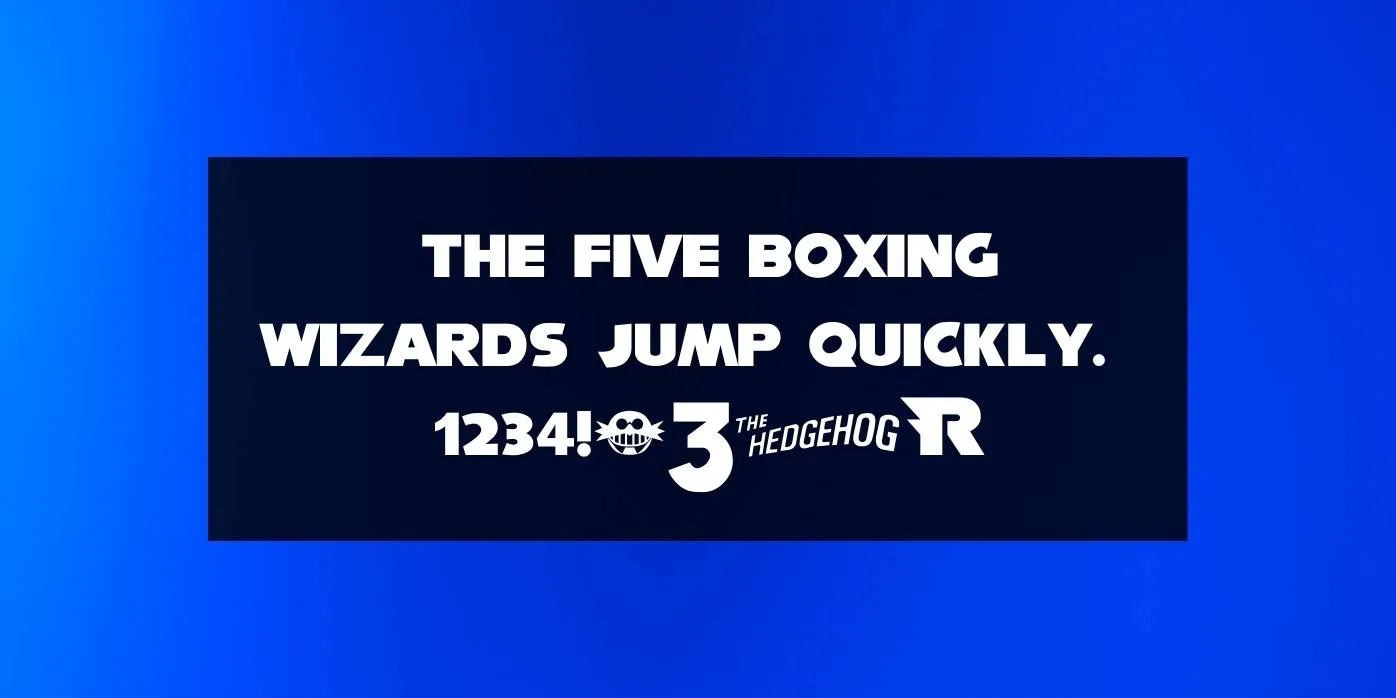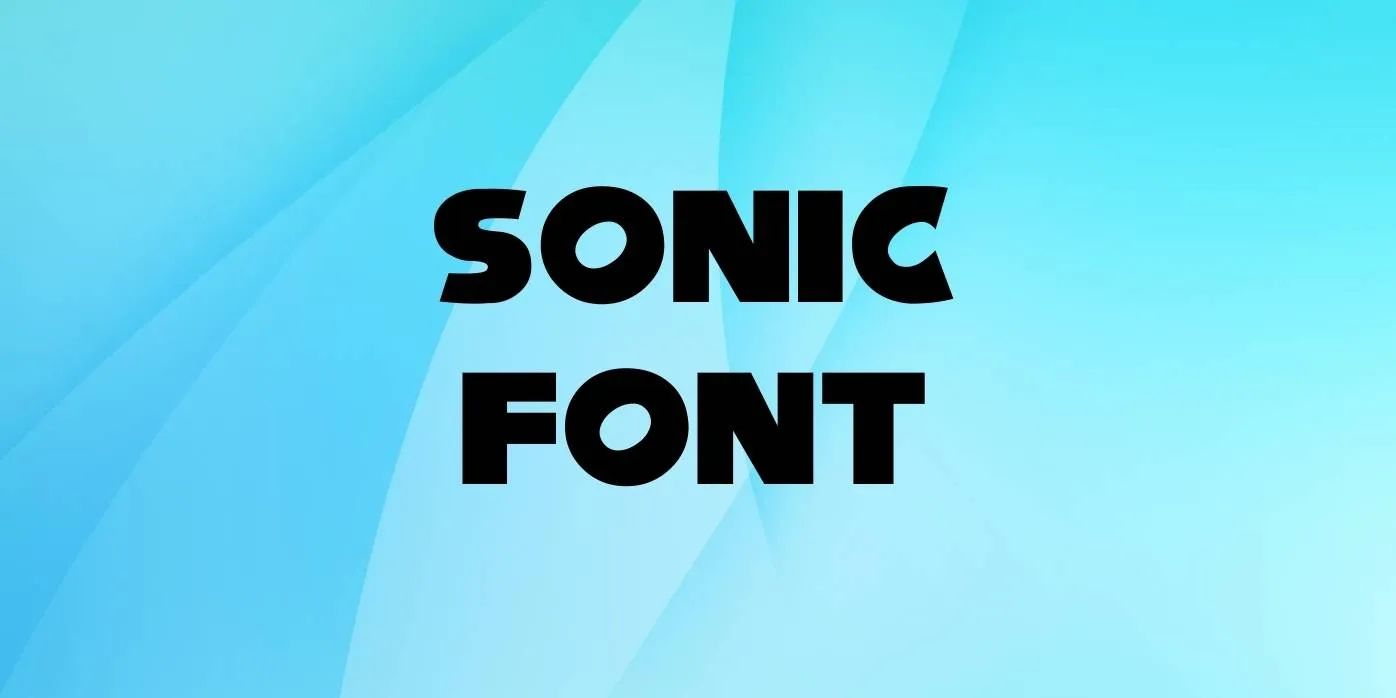
Sonic Font
Today, we introduce a stunning typeface that is knowns as Sonic Font. It is a sans serif typeface that was developed by Art Select. The typeface has an interesting story – it was inspired by the video game Sonic the Hedgehog. This typeface is specified for the CSS.
Sonic Typeface is a great choice for any project that needs a modern, sleek and stylish touch. It is perfect for headlines, logos, branding, and more. The Sonic Typeface family includes 4 different weights – Light, Regular, Bold, and Black. For more classic features, you will have to use its alternative mada font which has the same features.